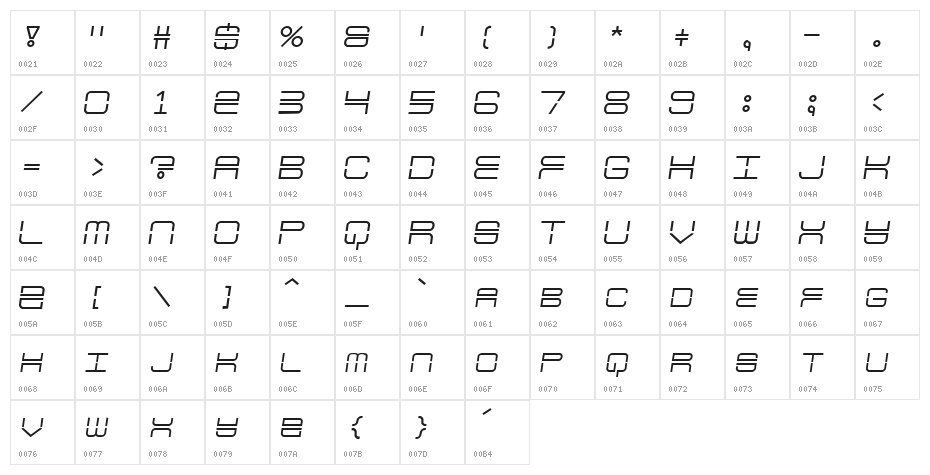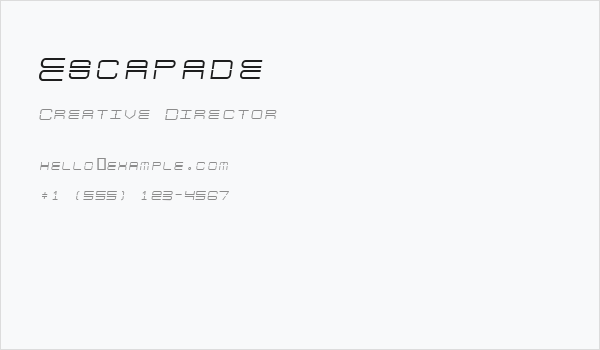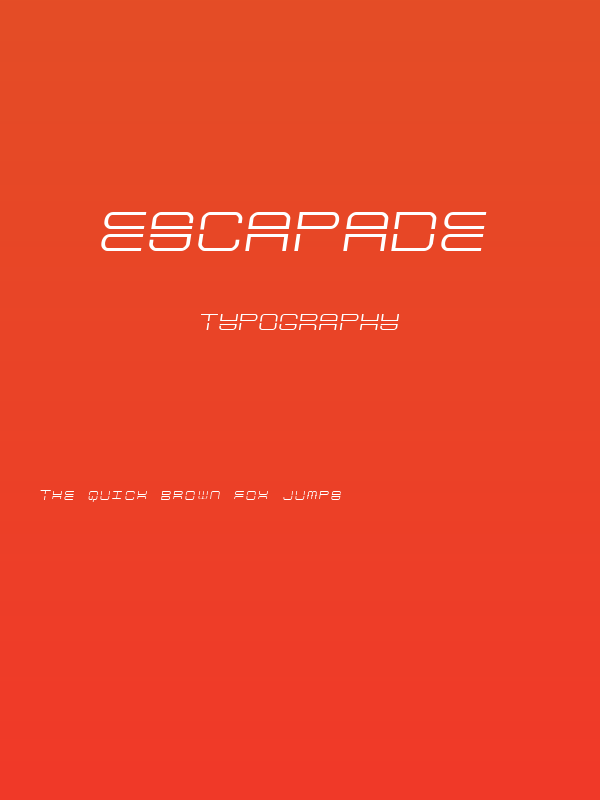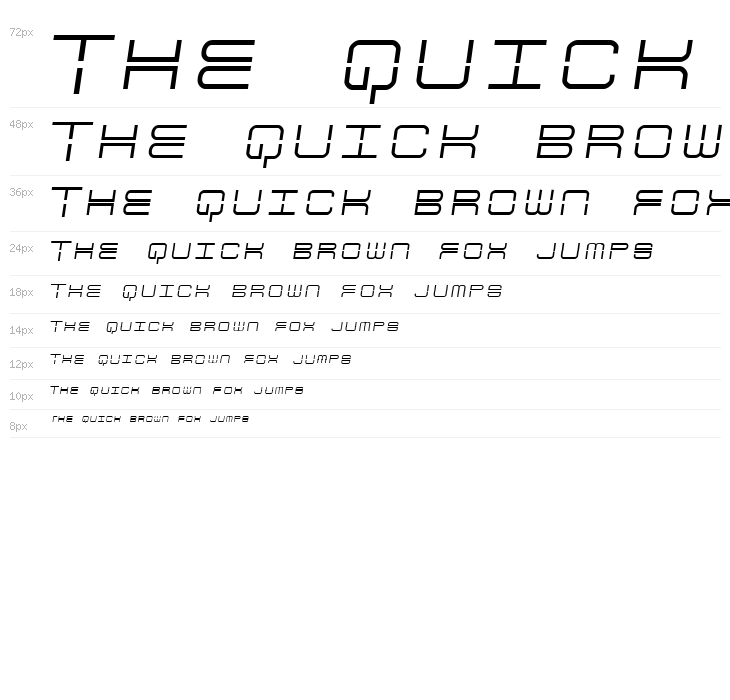
Escapade Font
Escapade Description
This font features a futuristic and geometric design, characterized by its clean lines and open forms. The uppercase and lowercase letters share a consistent style, with a focus on symmetry and minimalism. The numerals are equally modern, maintaining the same sleek aesthetic. Special characters are designed to complement the overall look, making it suitable for a variety of applications. The font's unique style is both eye-catching and versatile, ideal for projects that require a contemporary and innovative touch.
| Overall Style | Futuristic, Geometric |
| Use Case | Logos, Headlines, Digital Interfaces |
| Proposed Projects | Ideal for technology branding, sci-fi themed designs, modern advertising, and digital interfaces. |